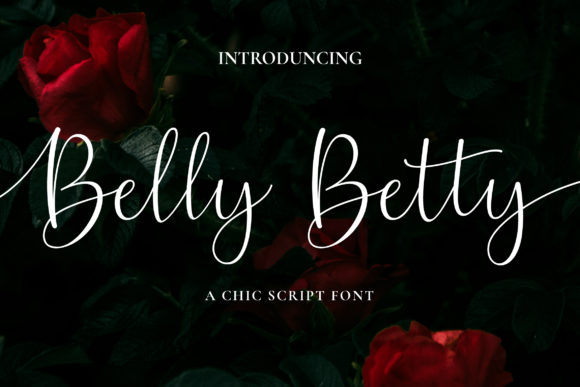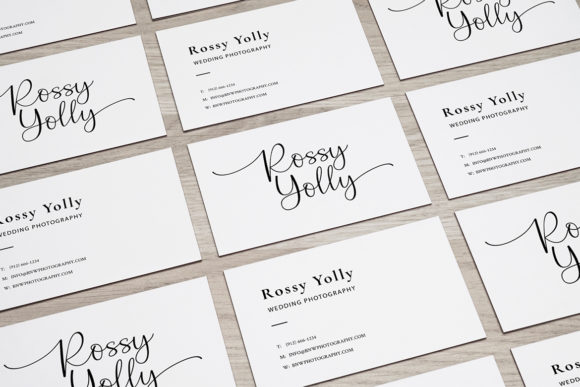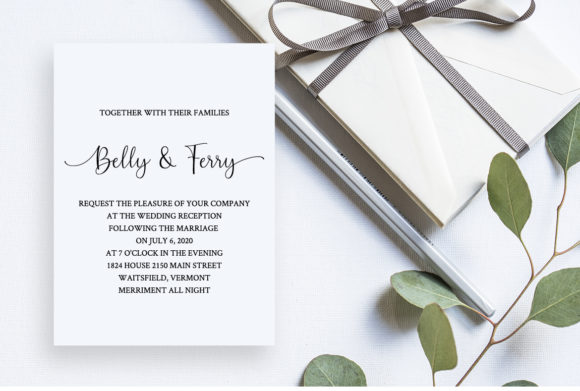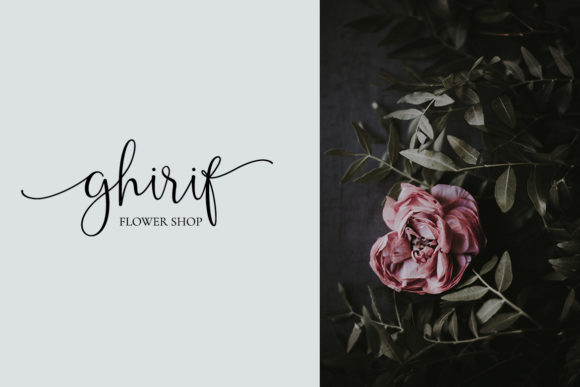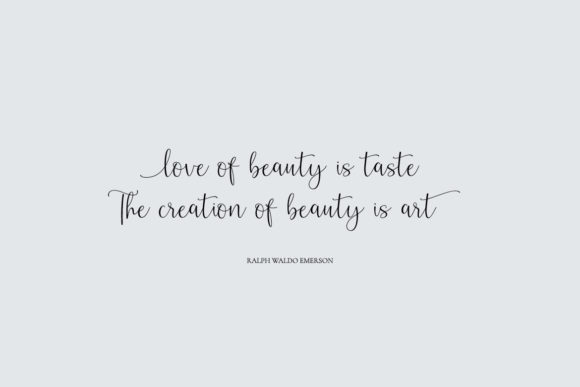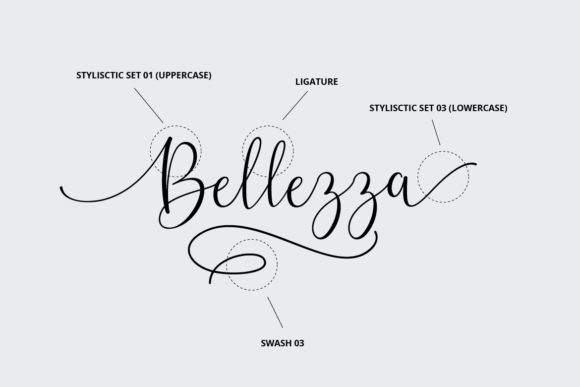
Belly Betty
Delicate flowing calligraphy with oversized looping capitals
Belly Betty is a modern calligraphy script from Ef Studio, with delicate, thin strokes and dramatic oversized loops on capitals like B, D, R, and Z that make every title feel hand-lettered.
Its clean lines and graceful curves make it a natural fit for wedding invitations, formal event signage, and branding projects that want an elegant, personal touch. Pair it with a simple sans serif for body text so the script's flourishes stay the focal point.